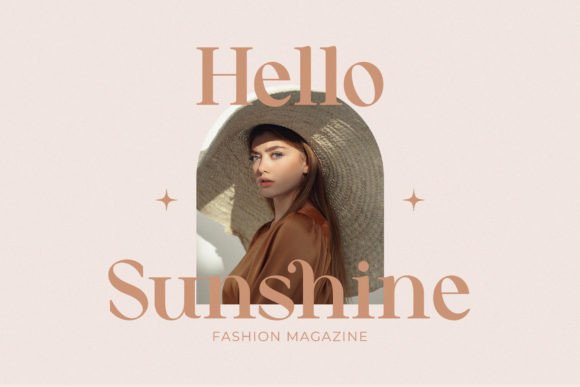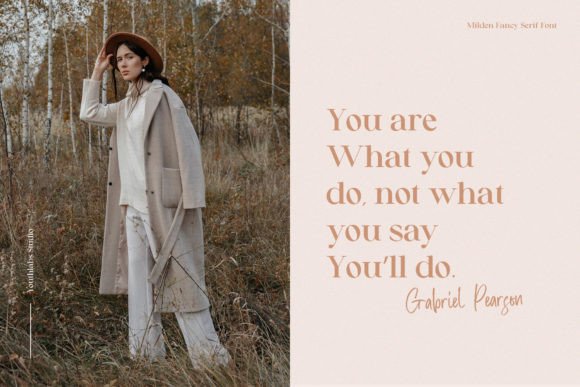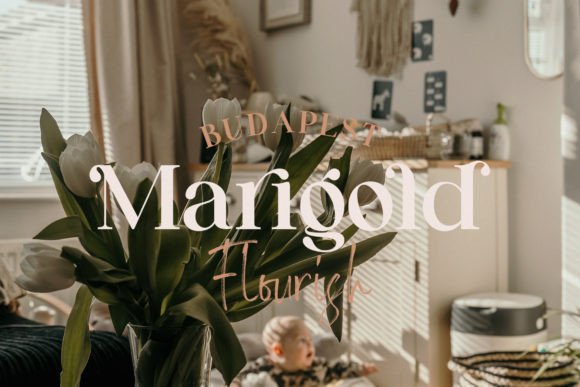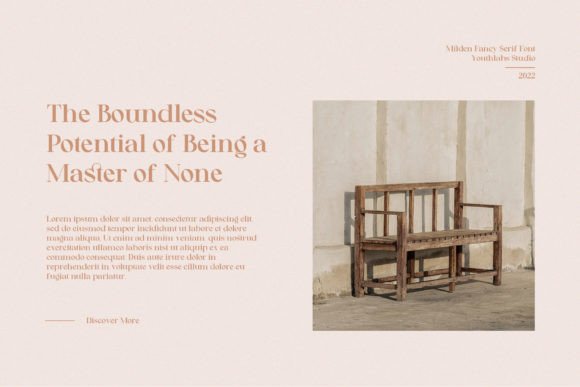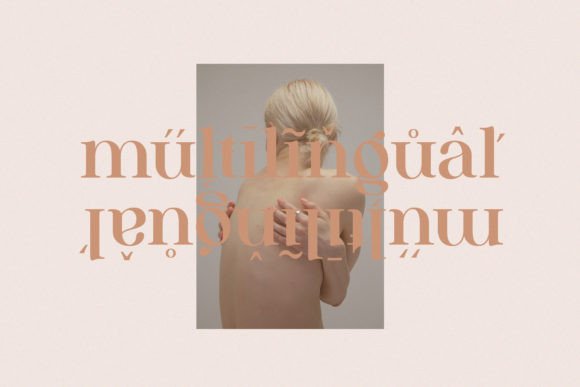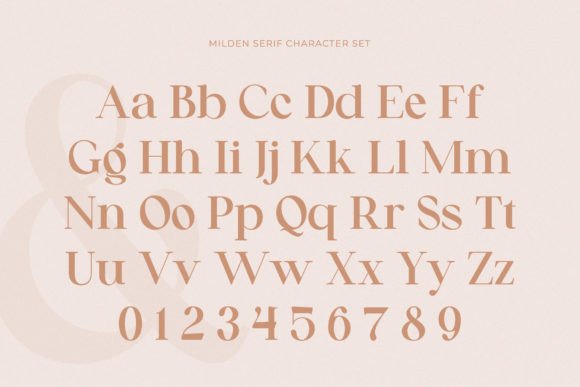
Introduction to Milden Font
MILDEN is a serif font that gives a fancy touch to your design.
It looks so good for the fashion brand logo With many alternative fonts, MILDEN will make it easier for you to use various design functions, be it for logos, typography, magazine, fashion, branding, advertising, and more.
Key Features of Milden Font